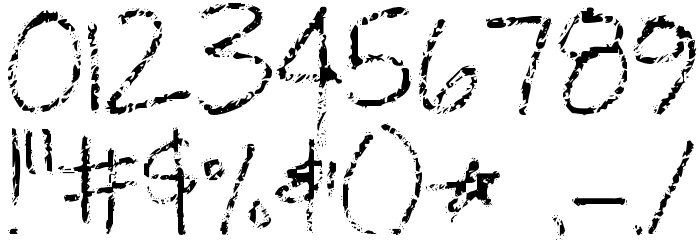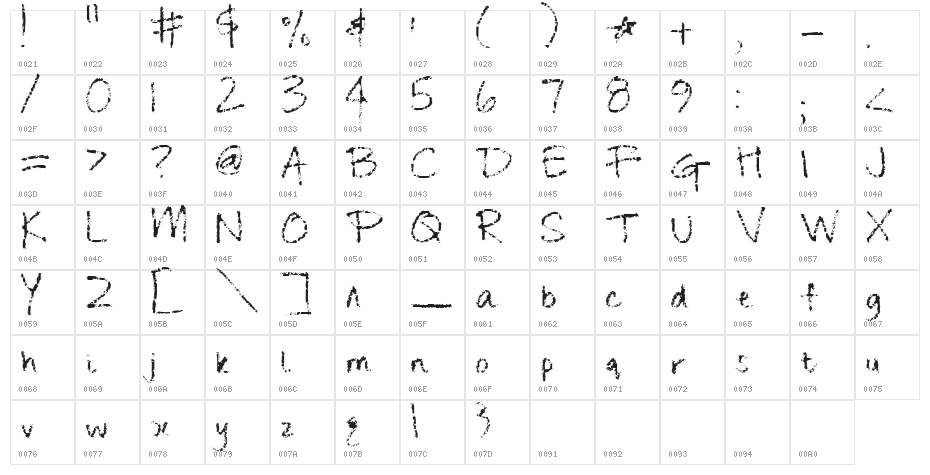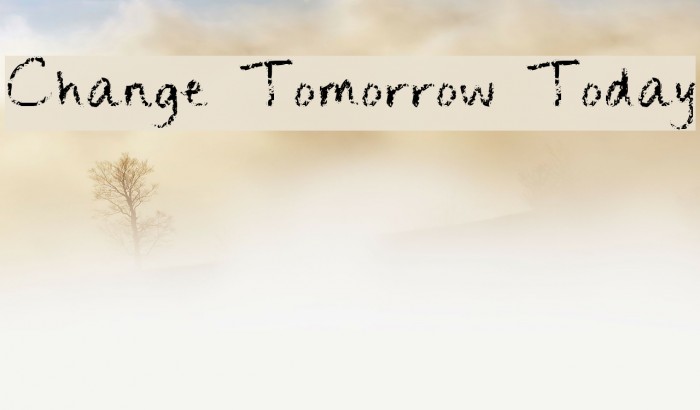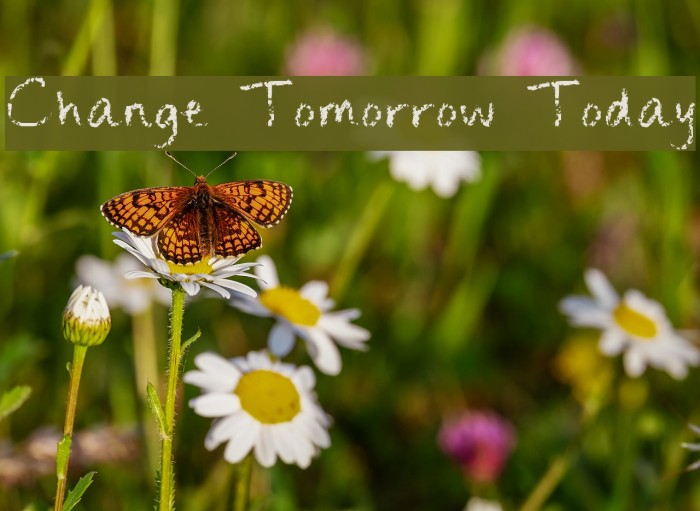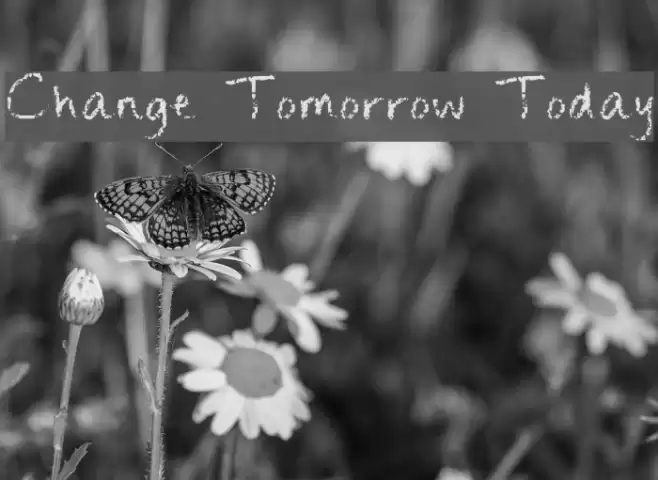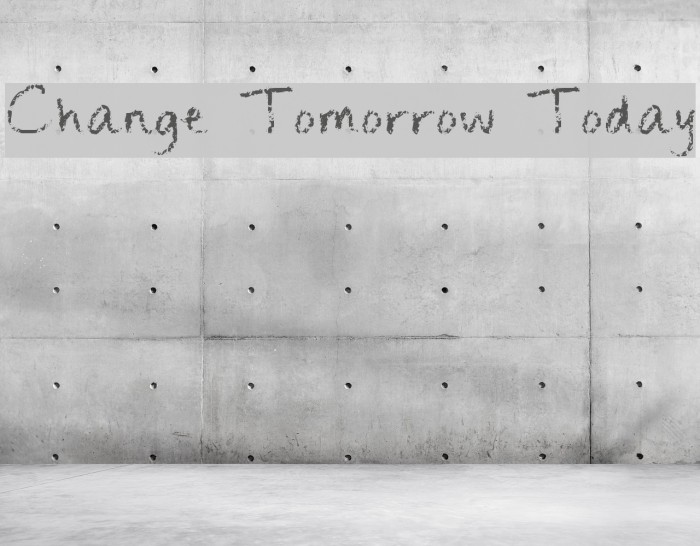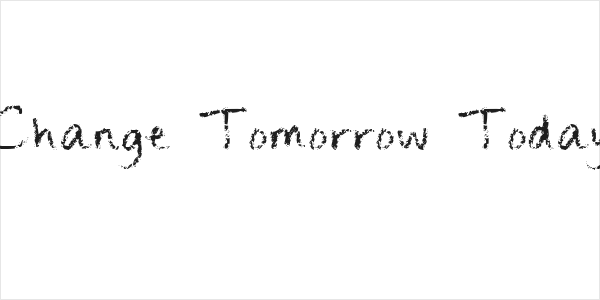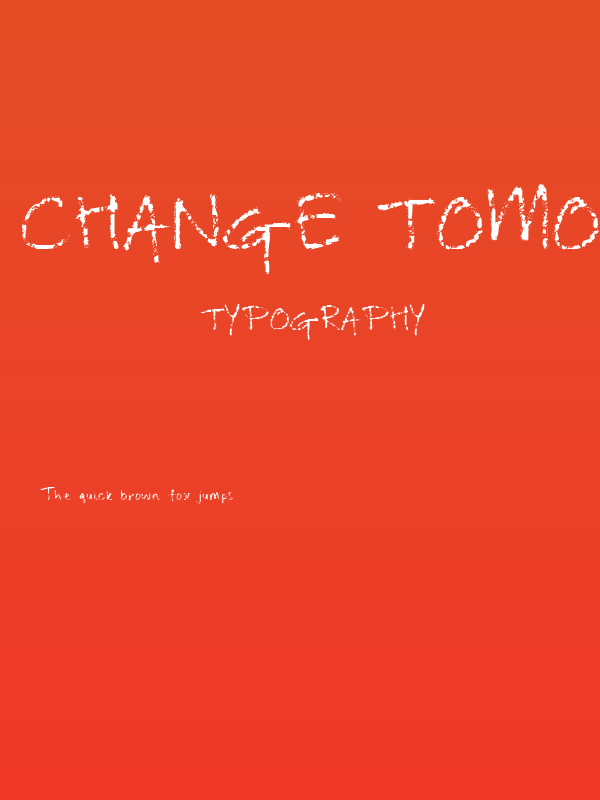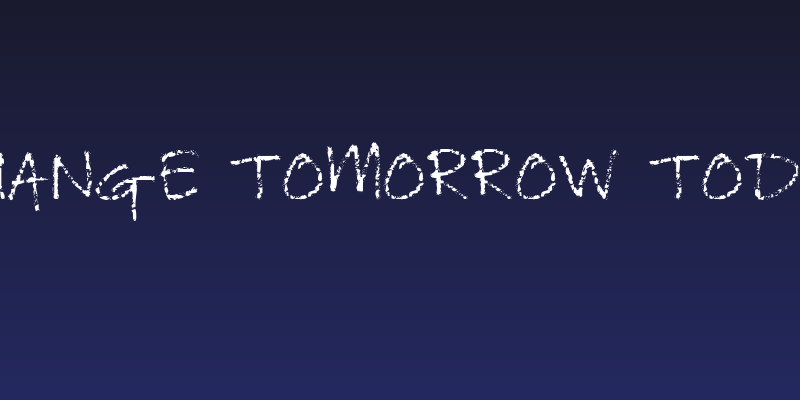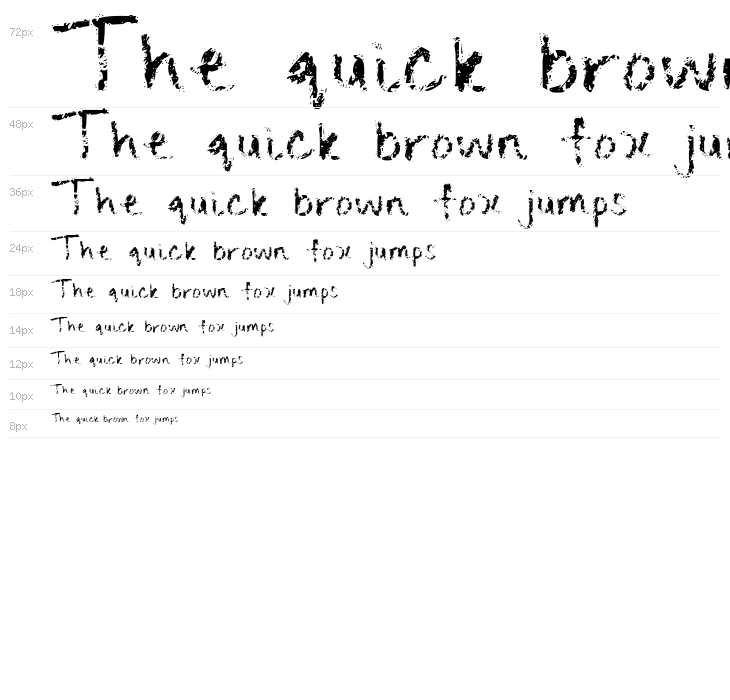
Change Tomorrow Today Font
Change Tomorrow Today Description
This font features a distressed, grunge style with a hand-drawn appearance. The characters are irregular and textured, giving an impression of being sketched with a rough brush or marker. The uppercase and lowercase letters maintain a consistent style, with uneven edges and a playful, artistic flair. The numbers and special characters follow the same aesthetic, adding to the overall cohesive look. This font exudes a raw, edgy vibe, perfect for projects that require a touch of rebellion or creativity.
| Overall Style | Grunge, Artistic |
| Use Case | Logos, Posters, Creative projects |
| Proposed Projects | Ideal for album covers, streetwear branding, graffiti art, and edgy poster designs. |